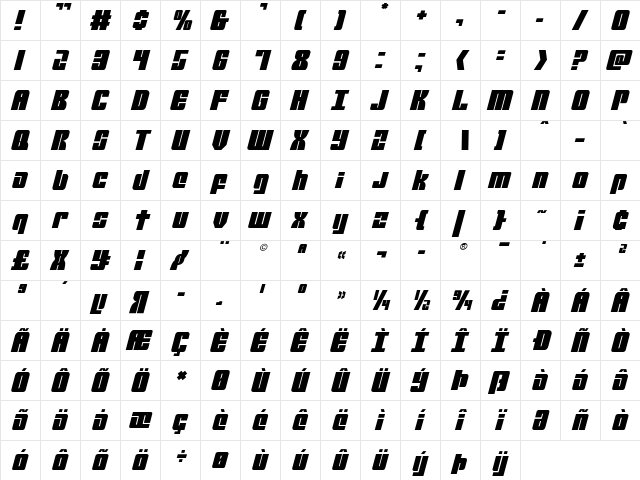
Mobile Infantry Italic Italic
Design Context for Mobile Infantry Italic Typeface
Mobile Infantry Italic is a composed and adaptable typeface that performs quietly and consistently across a wide range of design contexts. The dynamic lean of this cut emphasises speed and emphasis in any layout.
Pro Tip: Use Mobile Infantry Italic for emphasis, pull quotes, and subheadings where its slanted energy can add rhythm to the layout.